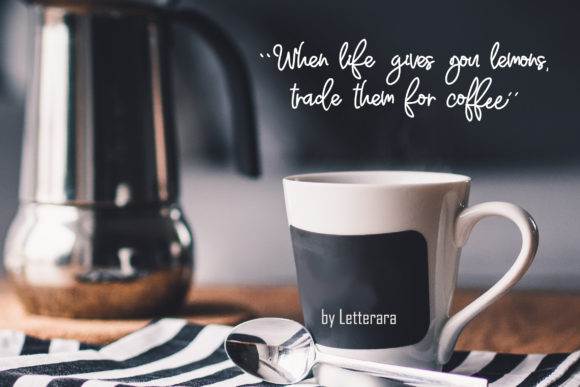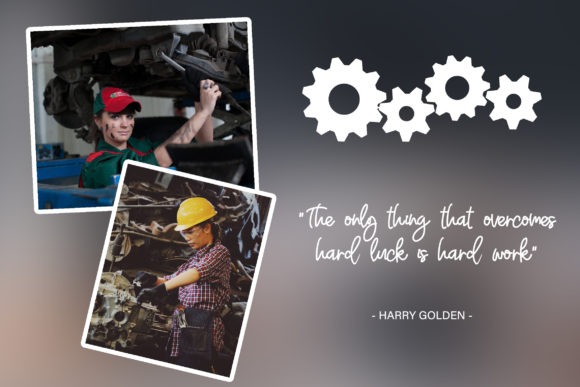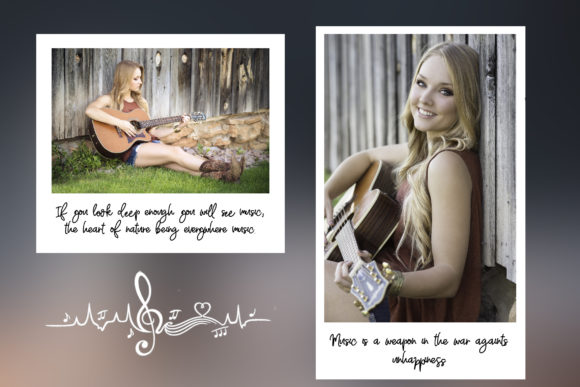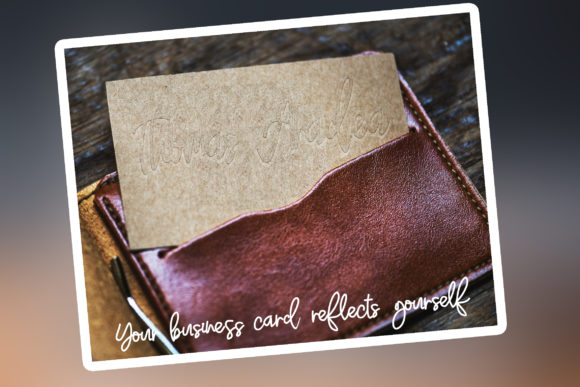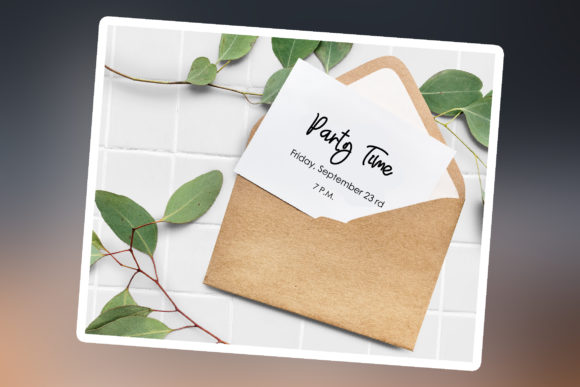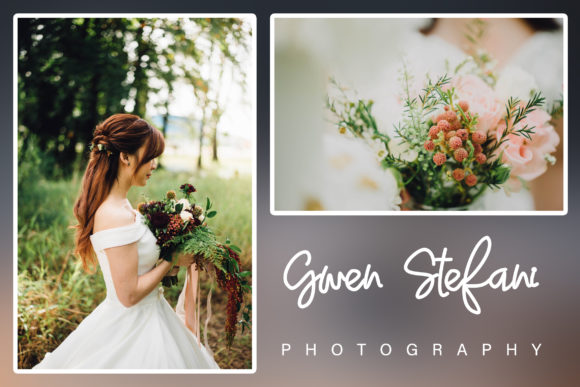
Enter the Adventure Dreamer Family Font, a stylish, handwritten font that’s not only easy to remember but also versatile enough to suit a wide range of creative projects. With four unique styles to choose from, this font gives you the freedom to experiment and create multiple designs with just one download. Whether you’re working on a branding project, photo overlay, or wedding invitation, the Adventure Dreamer Family Font is the perfect companion to help you unleash your creativity.
Key Features of Adventure Dreamer Family Font
- Font Family: The Adventure Dreamer Family Font is a set of 6 fonts, including Adventure Dreamer, Adventure Dreamer Script, Adventure Dreamer Sans, Adventure Dreamer Display, Adventure Dreamer Outline, and Adventure Dreamer Shadow.
- Size: The font family includes a range of weights, from Light to Extra Bold, providing flexibility for various design applications.
- Resolution: Optimized for high-resolution displays, making it suitable for use in digital media, including websites, social media, and mobile apps.
- Unique Characteristics: The Adventure Dreamer Family Font features a whimsical, dreamlike quality, with intricate details and flourishes, making it perfect for creative projects, such as children’s books, fantasy novels, and advertising campaigns.
Designer Review: Adventure Dreamer Family Font
Overall, I think the Adventure Dreamer Family Font is a fun and playful font that’s perfect for creating eye-catching designs. ✨ I love the variety of styles within the font family, from the bold and adventurous to the delicate and whimsical. ✨ The font is also highly customizable, which is a huge plus for designers who want to add a personal touch to their projects.
However, there are a few limitations to consider. ⚠️ One of the main issues is that the font can be quite busy, which may make it difficult to read in certain contexts. ⚠️ Additionally, the font doesn’t include as many language support options as some other fonts, which may limit its usability for certain projects.
- Playful and adventurous vibe
- Variety of styles within the font family
- Perfect for eye-catching designs
- Can be too busy for certain contexts
- Limited language support options
Adventure Dreamer Family Font: A Practical Application Guide
For optimal results, pair the Adventure Dreamer Family Font with a clean and simple background to let the typography shine. Common use cases include travel brochures, adventure-themed websites, and social media graphics.
Comparison: Great Vibes is more polished and sophisticated compared to Adventure Dreamer Family Font, which is more playful and rustic.